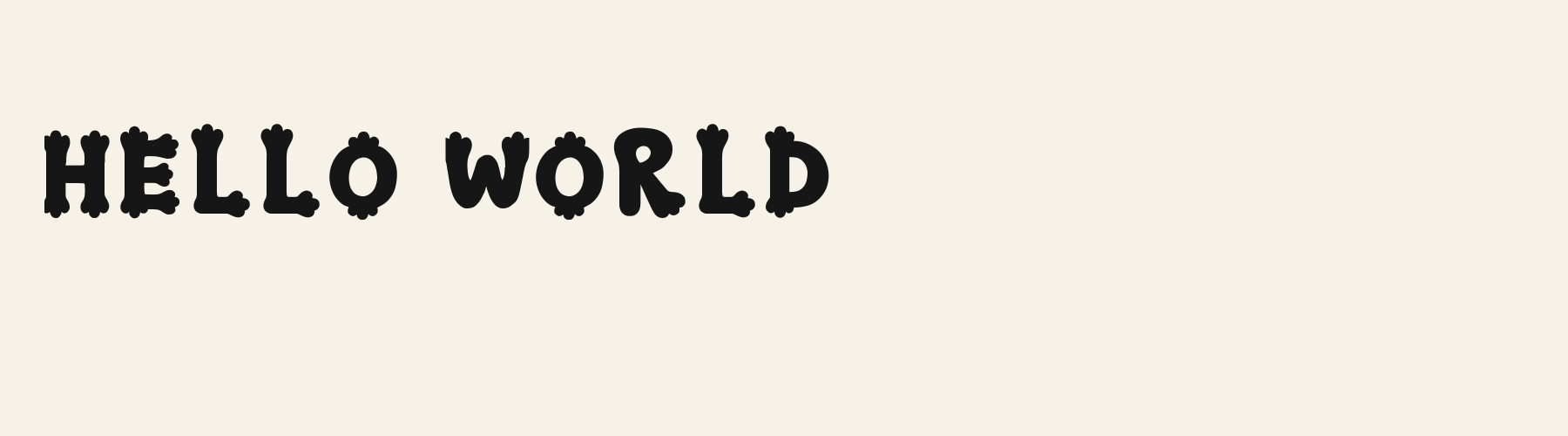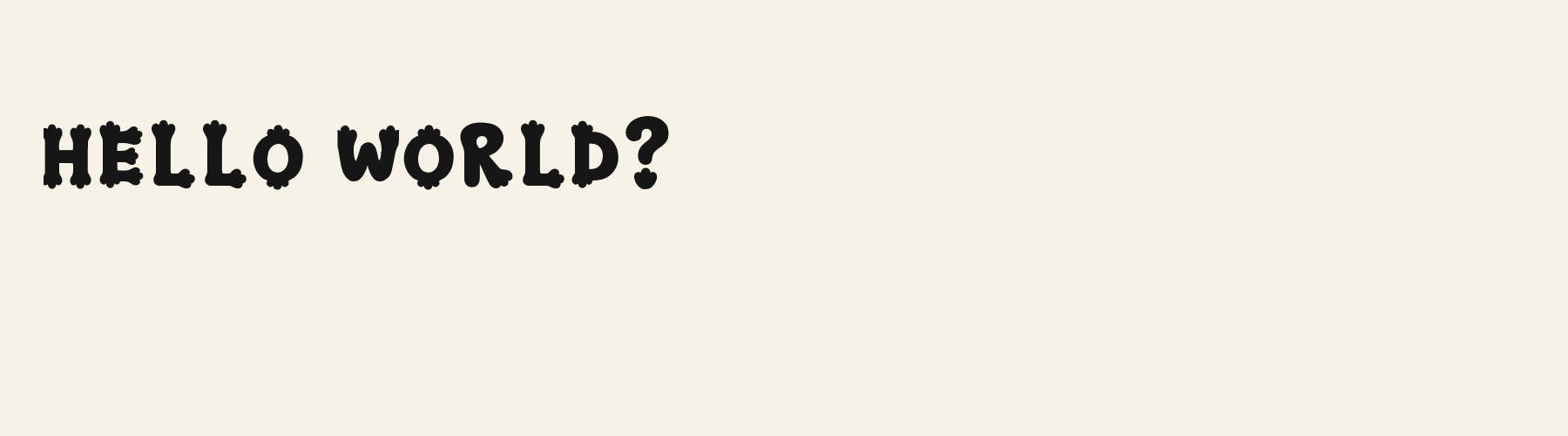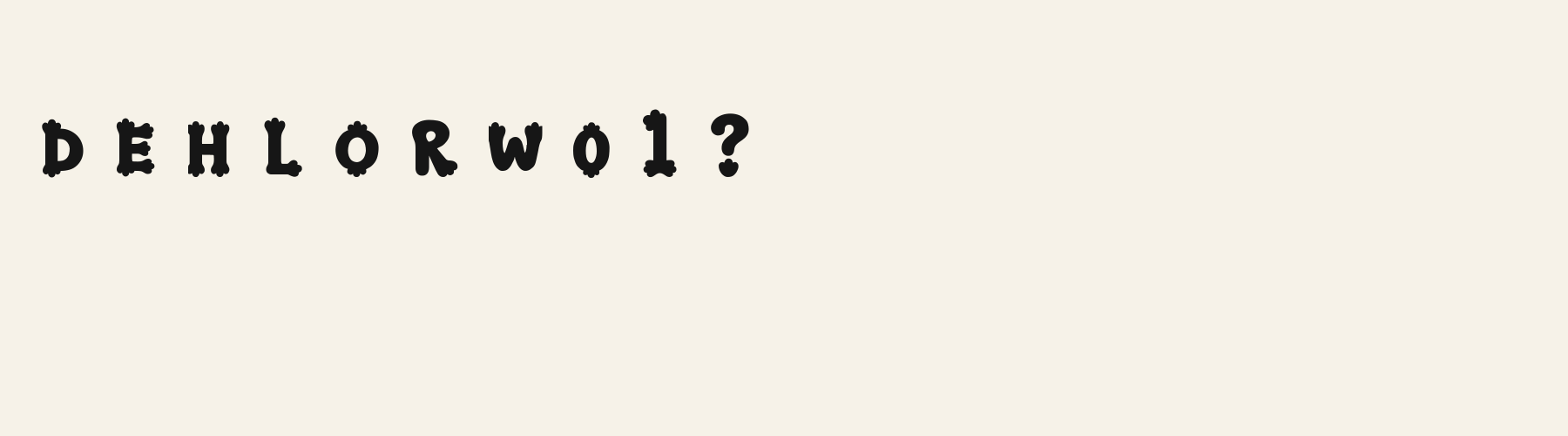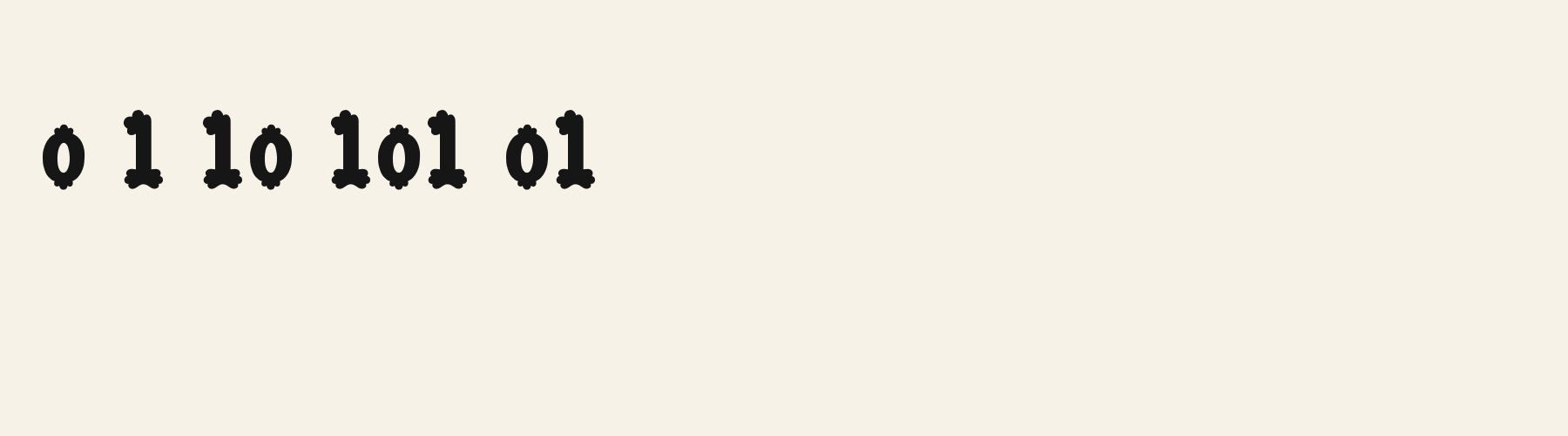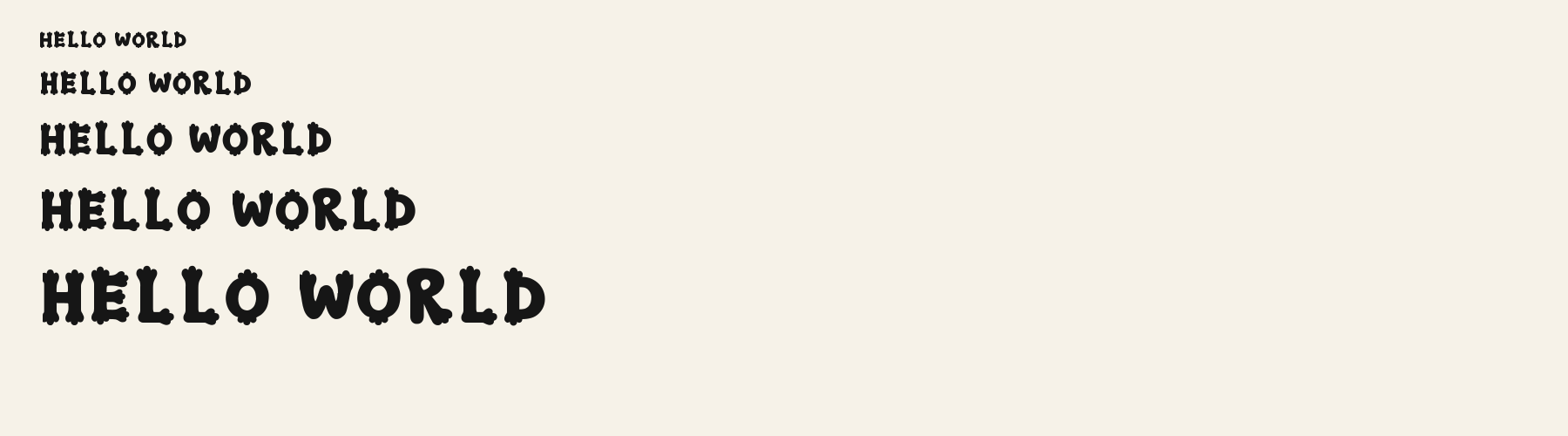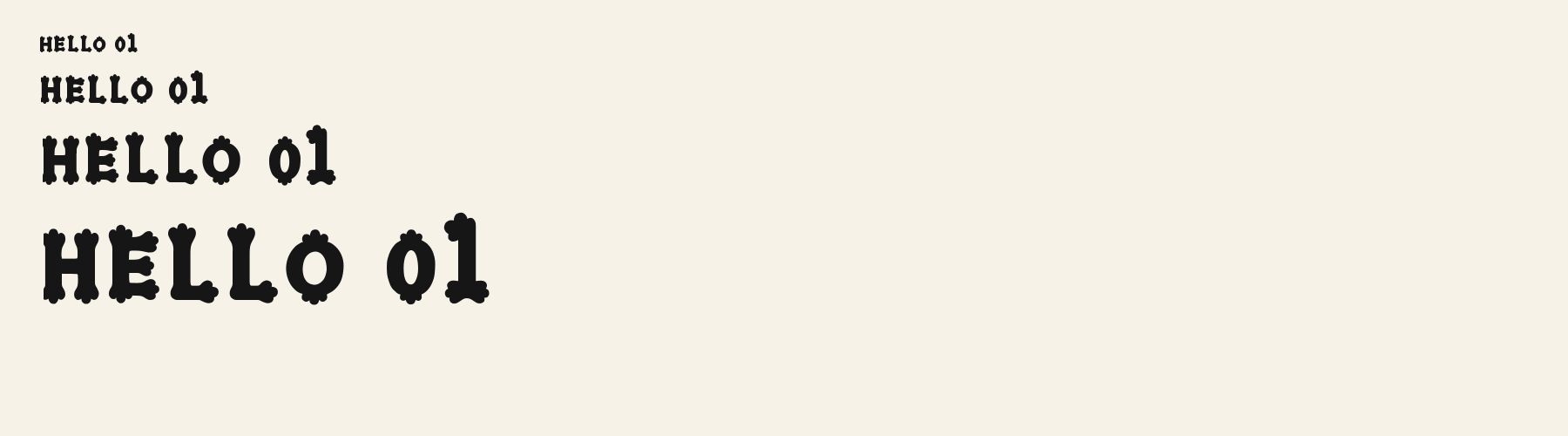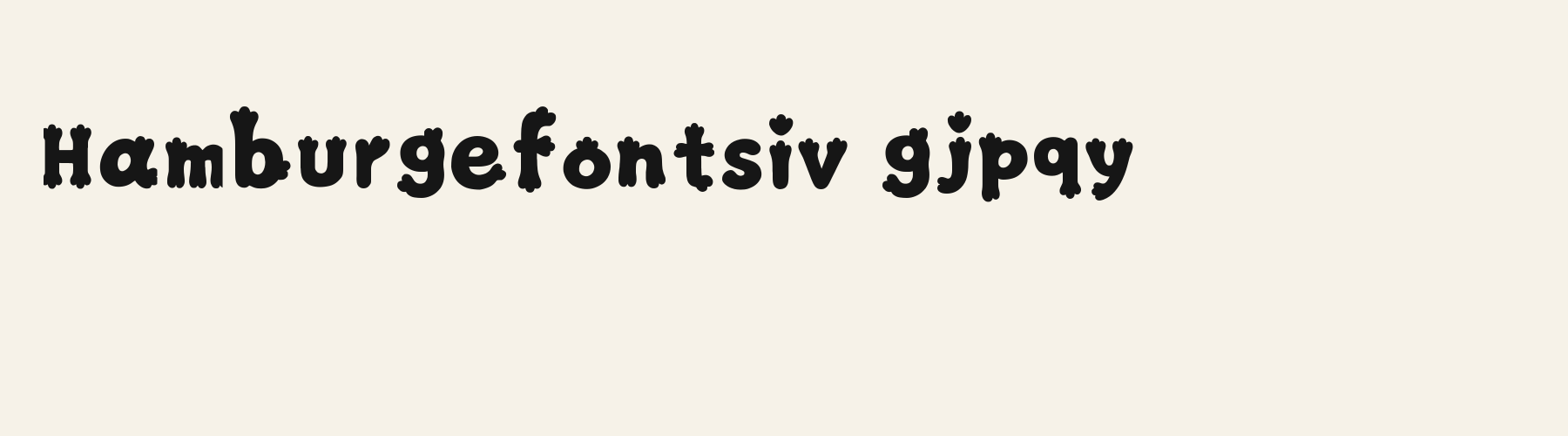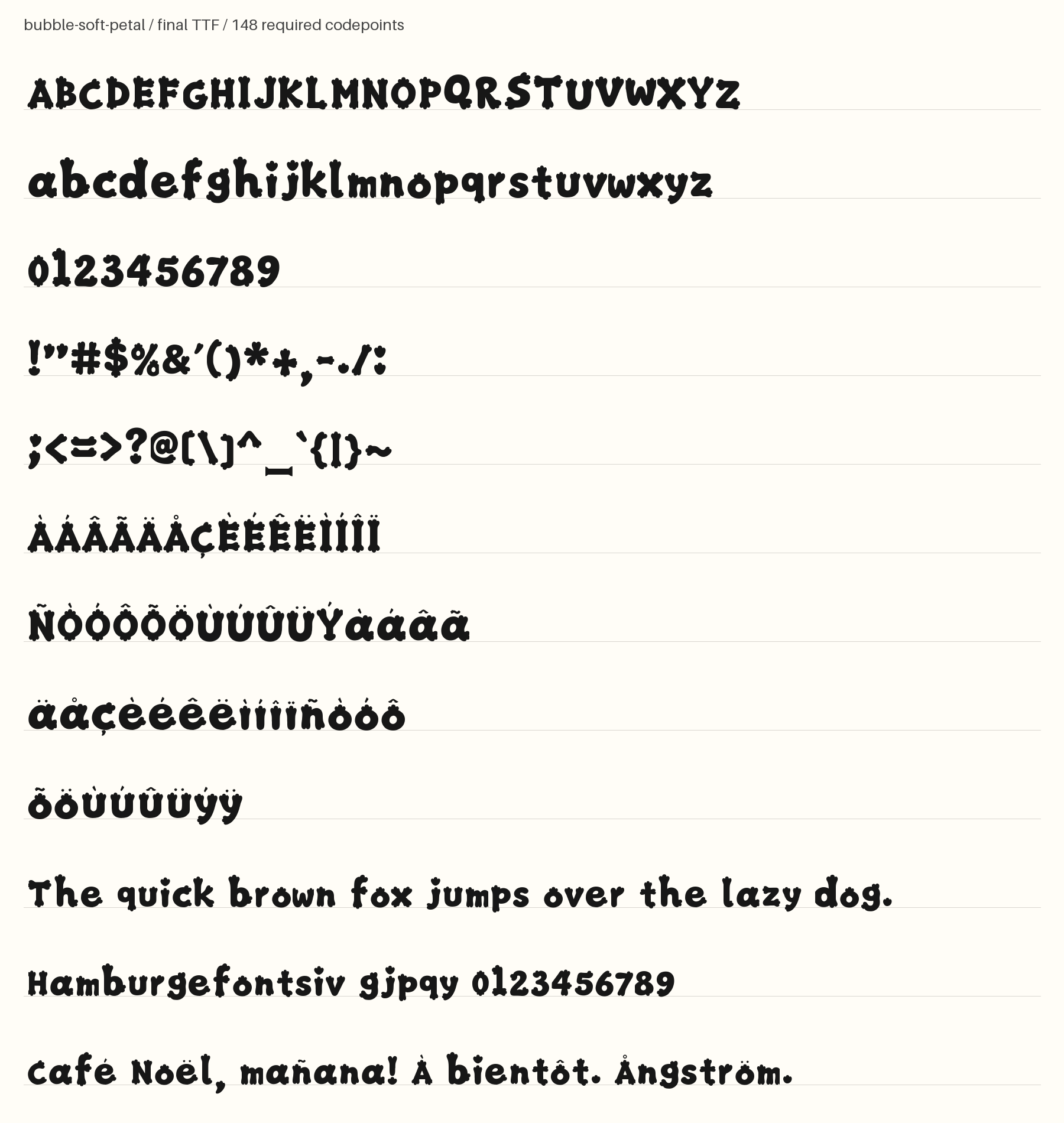
Cute Storybook Round
DisplayCute Storybook Round
Bubble Soft Petal is a pretty party stationery, children’s invitations and gentle product labels. plump rounded strokes, moderate width, open counters and a calm upright rhythm. Best for pretty party stationery, children’s invitations and gentle product labels.
Includes all 95 printable Basic Latin characters and 148 glyphs in total.
Verified language coverage: English (Basic Latin)